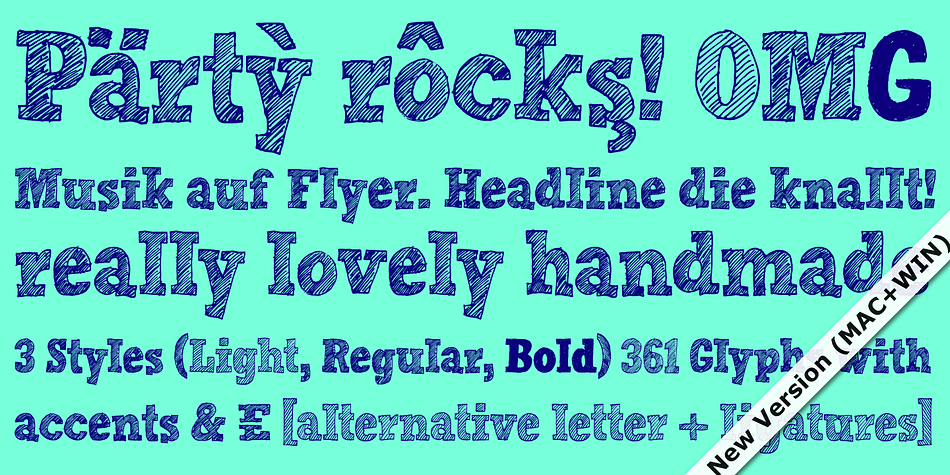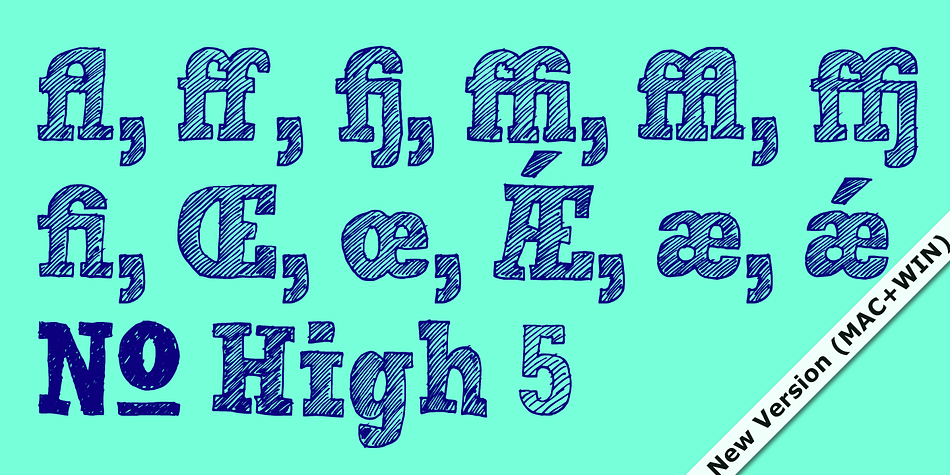
Designed by Manuel Viergutz, Hand Scribble Sketch Rock is a hand display font family. This typeface has three styles and was published by Typo Graphic Design.
Hand Scribble Sketch Rock is an interpretation of a classic egyptienne/slab serif typeface with modern and fancy handmade haptics/hatching.
The 3 styles/weights fits perfectly in each font size. From light to bold. All 3 styles are handemade sketched for diverse display size.